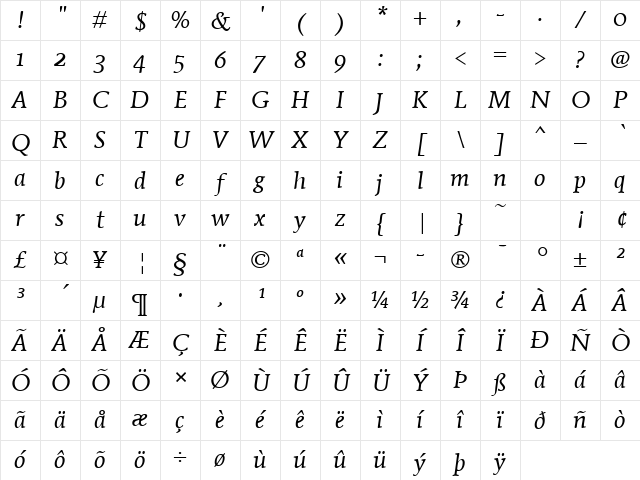
Mendoza Roman OS ITC TT BookIta
Style: BookIta
Design Context for Mendoza Roman OS ITC TT
Mendoza Roman OS ITC TT is a composed and adaptable typeface that performs quietly and consistently across a wide range of design contexts.